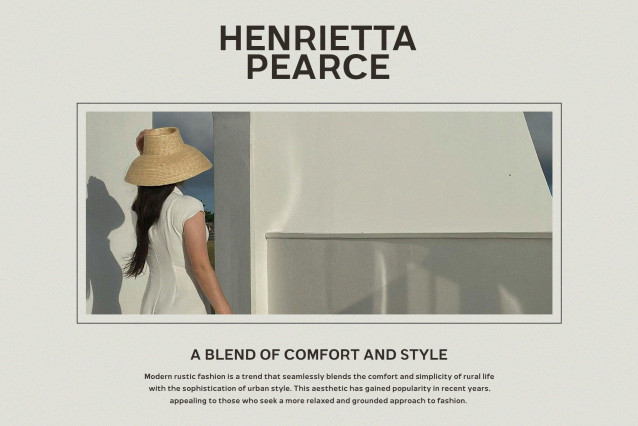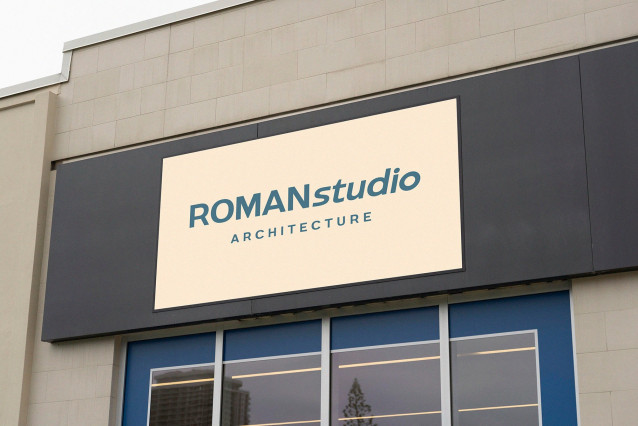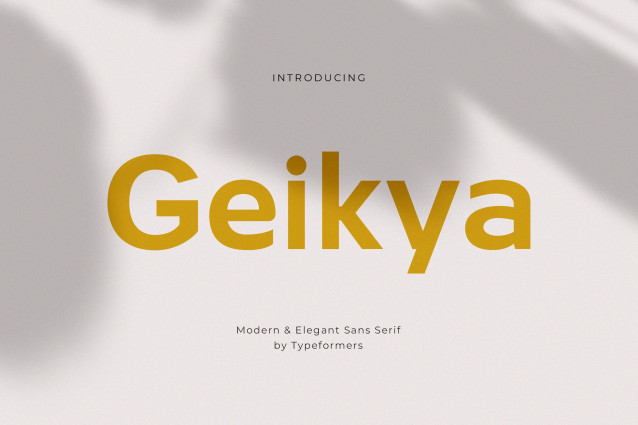
Geikya Font
Geikya Font is a modern and simple font, best used as a display for headings, logos, branding, magazines, product packaging and invitations.